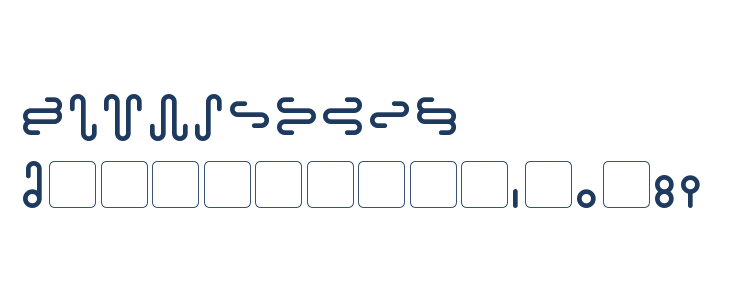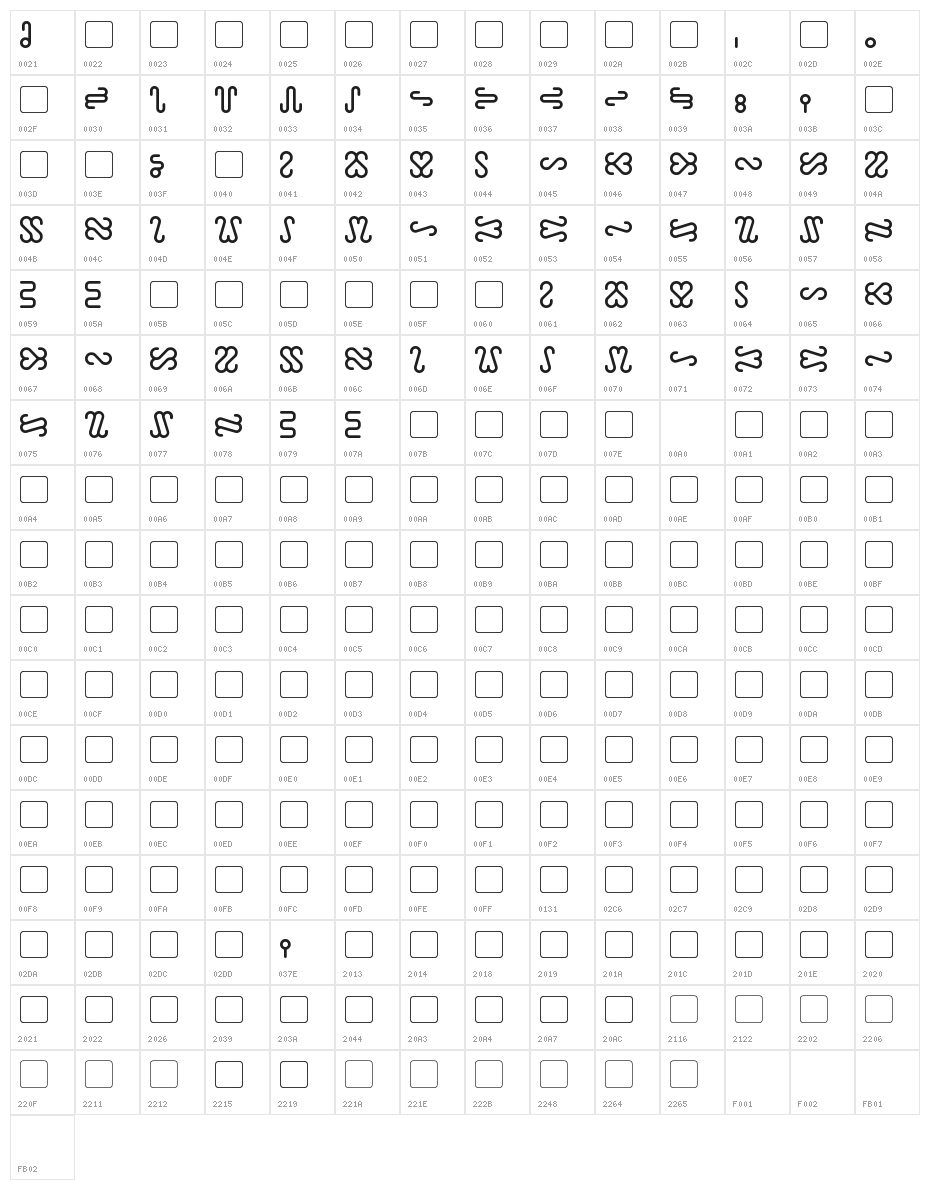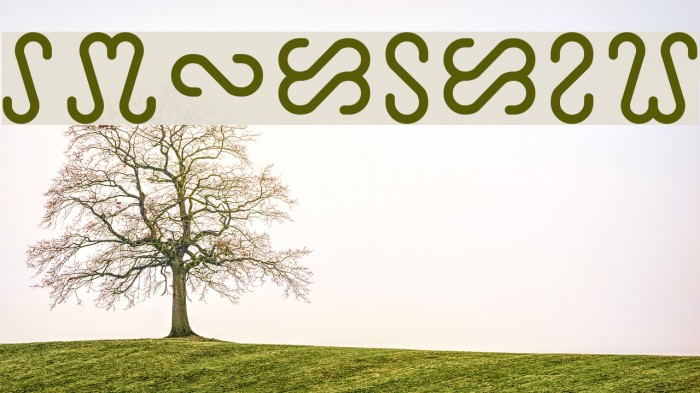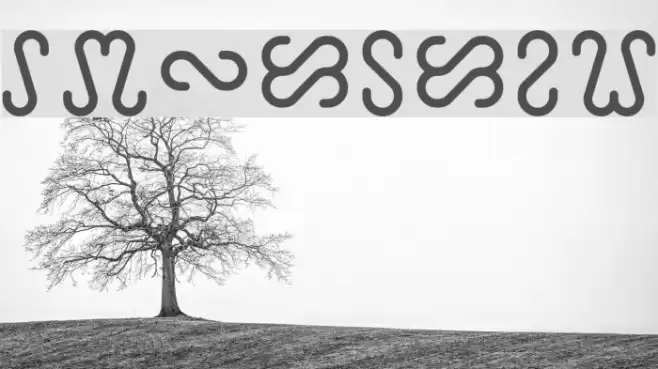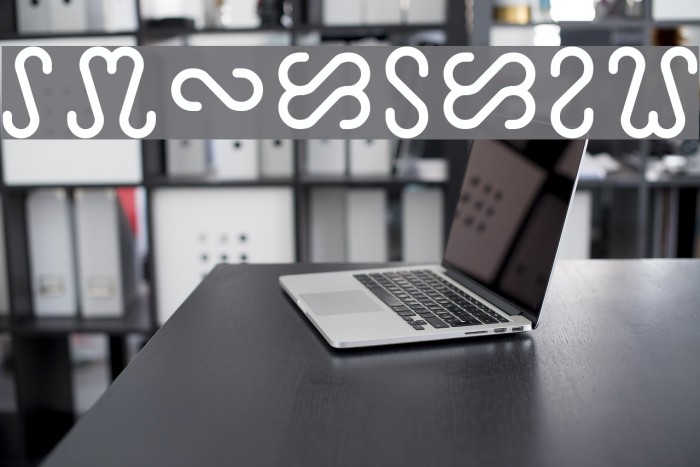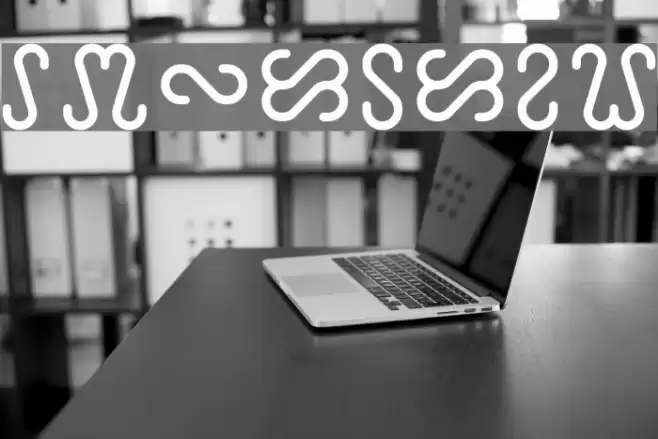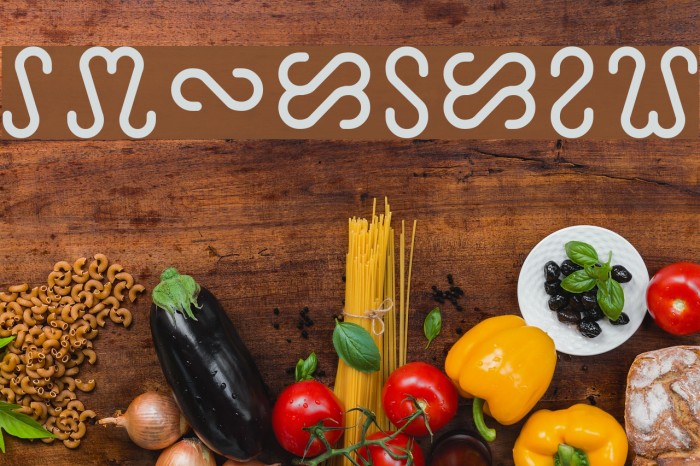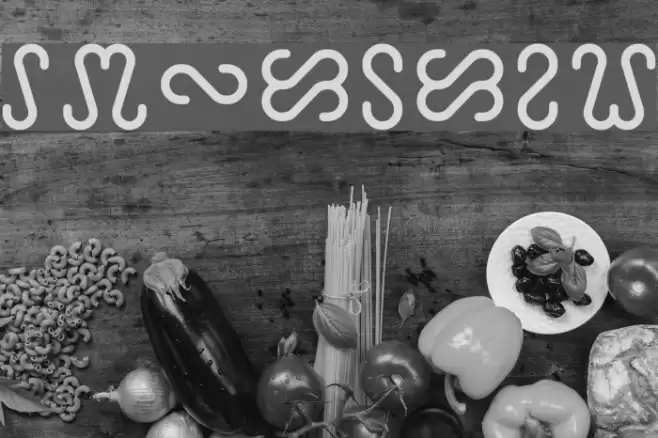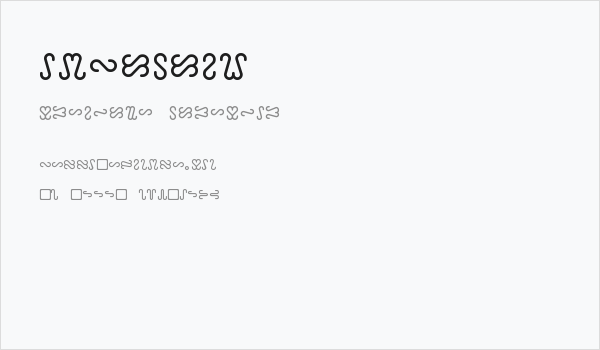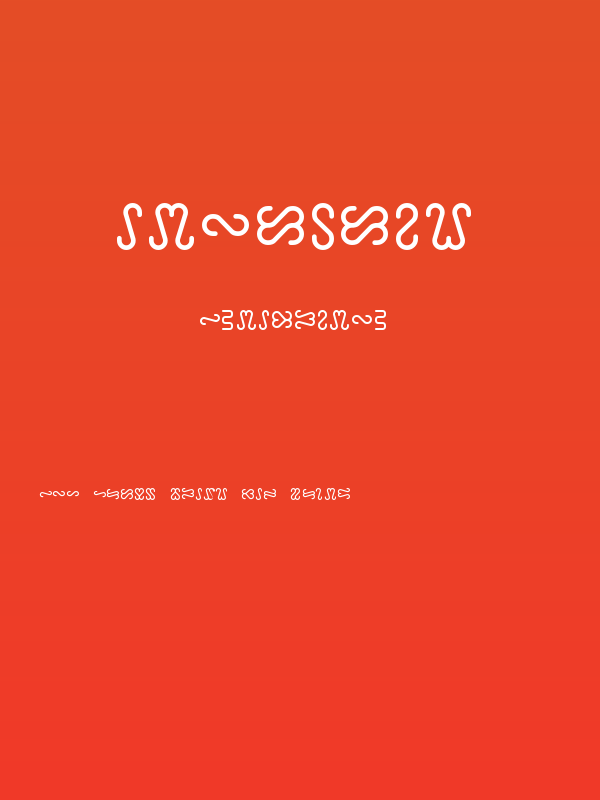
Ophidian Font
Ophidian Description
This font features a unique, decorative style with a continuous, flowing design that resembles serpentine or snake-like curves. Each character is crafted with bold, rounded strokes that create a sense of movement and fluidity. The letters are interconnected, giving the impression of an unbroken line, which adds to its ornamental appeal. The font's playful and artistic nature makes it stand out, offering a visually engaging experience. Its intricate design is both eye-catching and distinctive, suitable for creative projects that require a touch of whimsy and elegance.